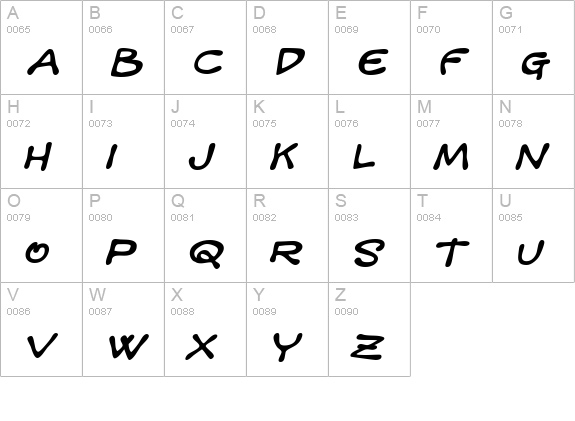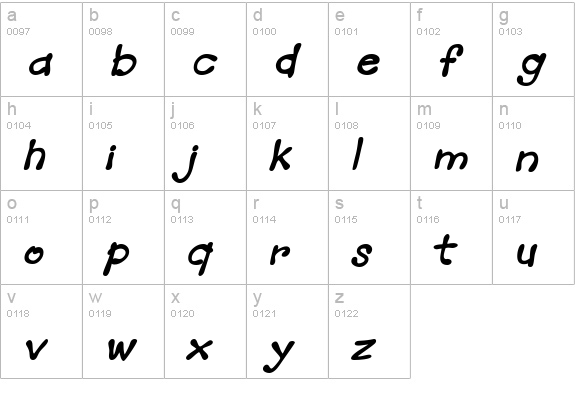
Mandingo BTN BoldOblique Font Details
Mandingo BTN BoldOblique is a striking and powerful font that exudes confidence and strength. With its bold and oblique design, this font commands attention and makes a bold statement. The unique combination of thick, bold strokes and slanted letterforms adds a touch of sophistication and modernity to any design project. This font is incredibly versatile and can be used for a wide range of purposes, from headlines and titles to logos and branding. Its bold and oblique nature adds a sense of drama and impact, making it the perfect choice for projects that require a strong and memorable visual presence. Mandingo BTN BoldOblique is not only visually stunning but also highly legible, ensuring that your message is clear and easy to read. Its clean and well-defined letterforms make it a practical choice for both print and digital designs. One of the best parts about Mandingo BTN BoldOblique is that it is freely available to download at FontsMarket.com. This means that you can easily access and use this font in your projects without any cost. Whether you are a professional designer or a student working on a personal project, having access to a high-quality font like Mandingo BTN BoldOblique for free is a true blessing. So why wait? Download Mandingo BTN BoldOblique now and unleash its bold and captivating energy in your next design endeavor. Whether you're creating a poster, a website, or a logo, this font is sure to make a lasting impression. Get ready to make your designs stand out with the bold and powerful presence of Mandingo BTN BoldOblique.